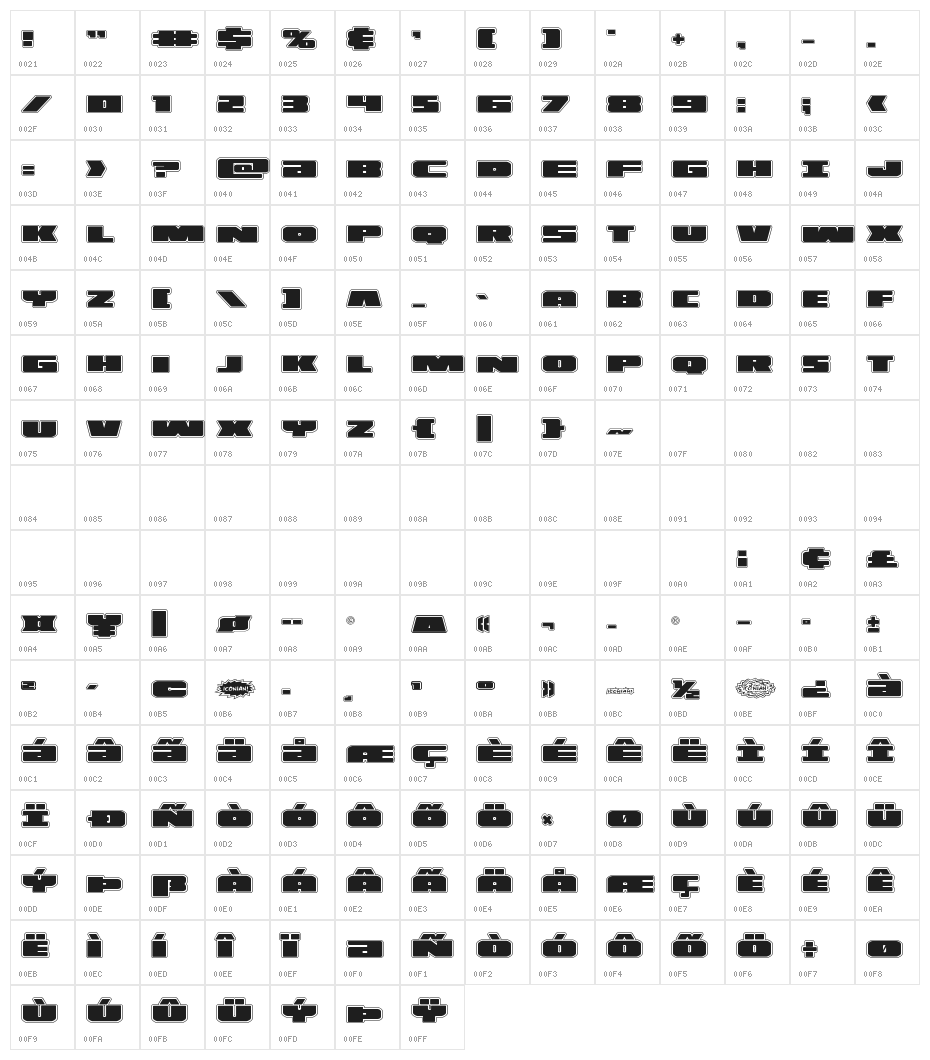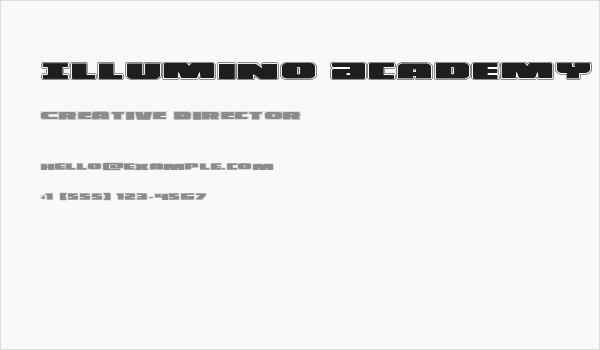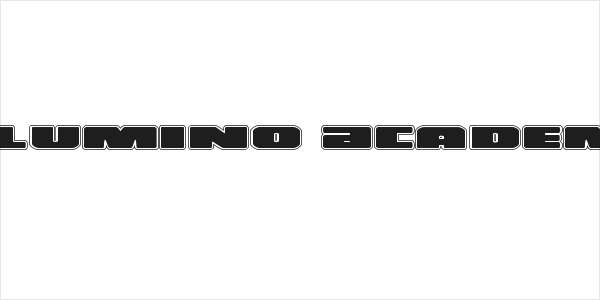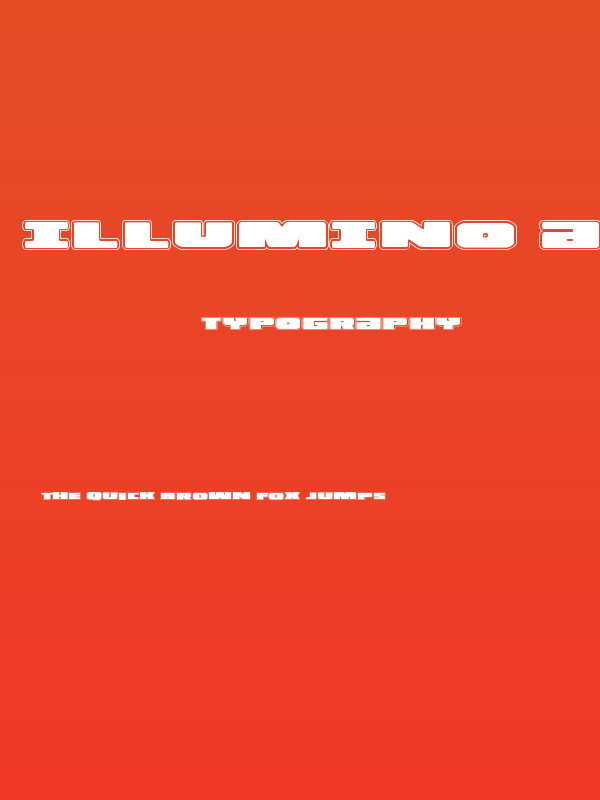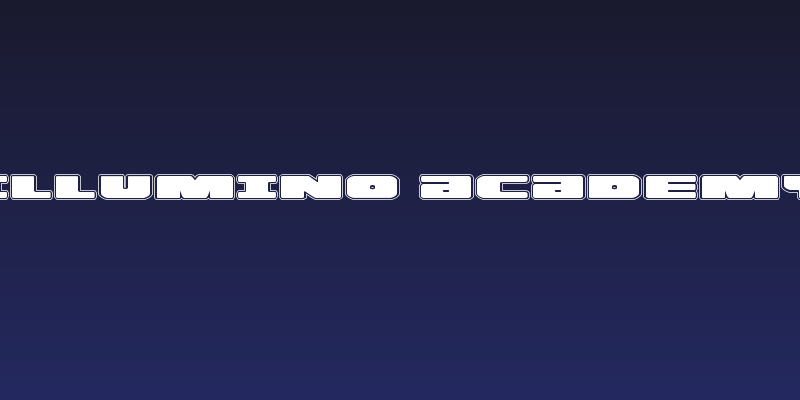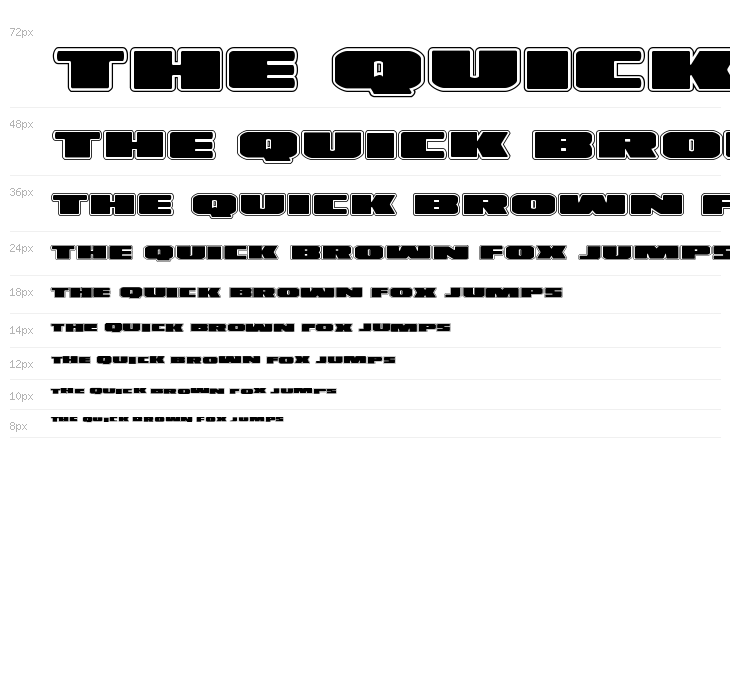
Illumino Academy Font
Illumino Academy Description
This font features a bold, geometric design with a strong, block-like appearance. Each character is enclosed within a thick outline, giving it a distinct, three-dimensional effect. The uppercase and lowercase letters maintain a consistent style, with uniform width and height, enhancing readability while maintaining a unique aesthetic. The numbers and special characters follow the same design principles, ensuring a cohesive look across all elements. The font's boldness and structure make it ideal for attention-grabbing headlines and impactful designs.